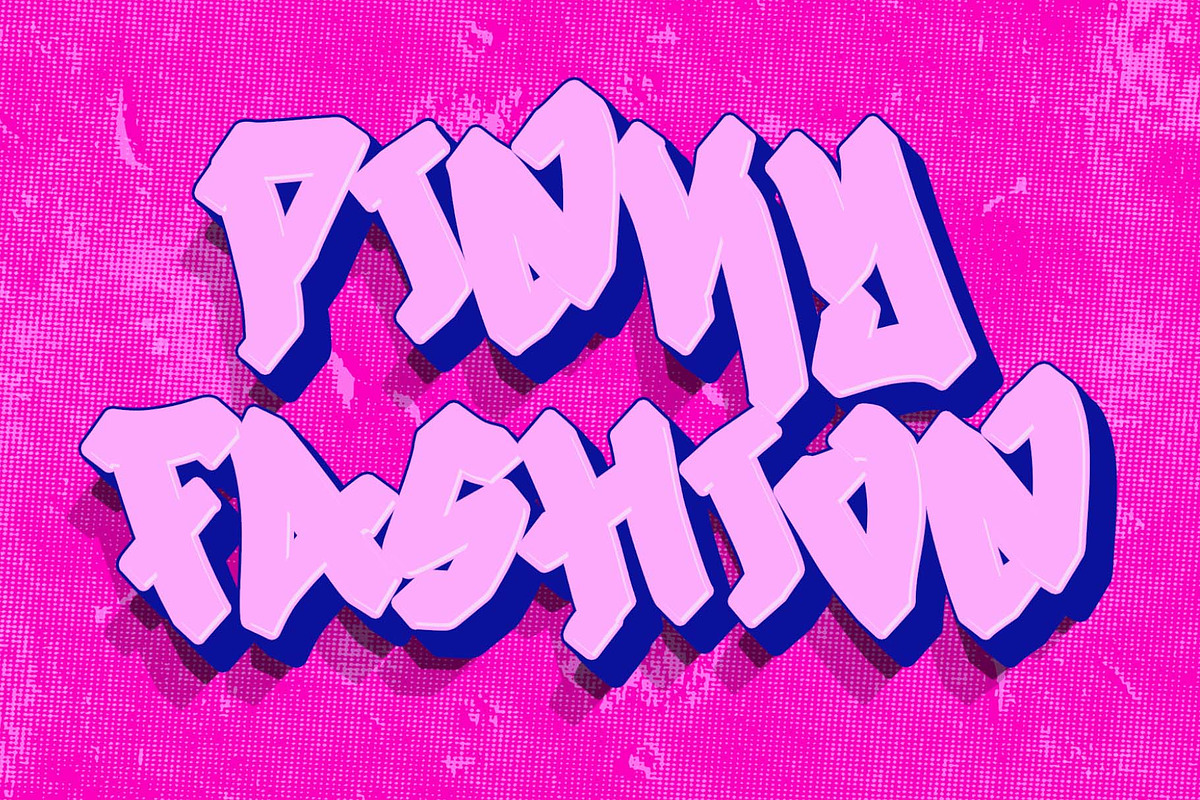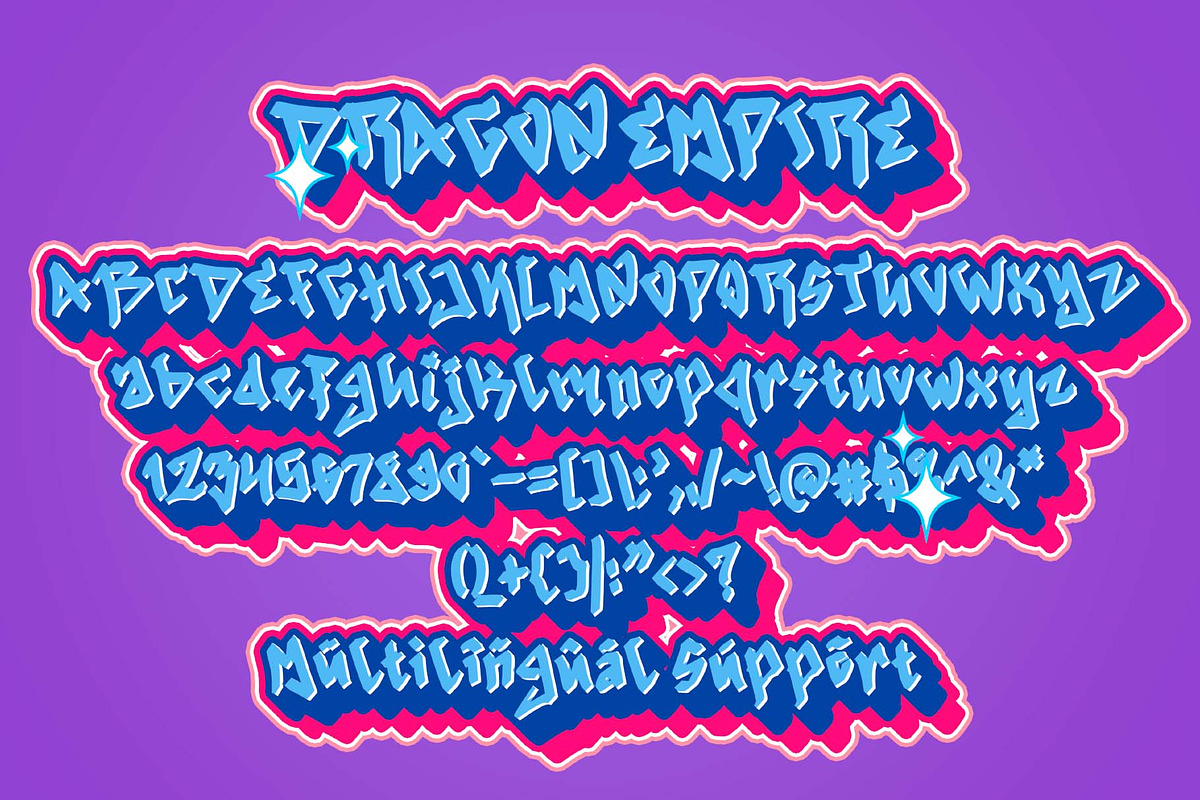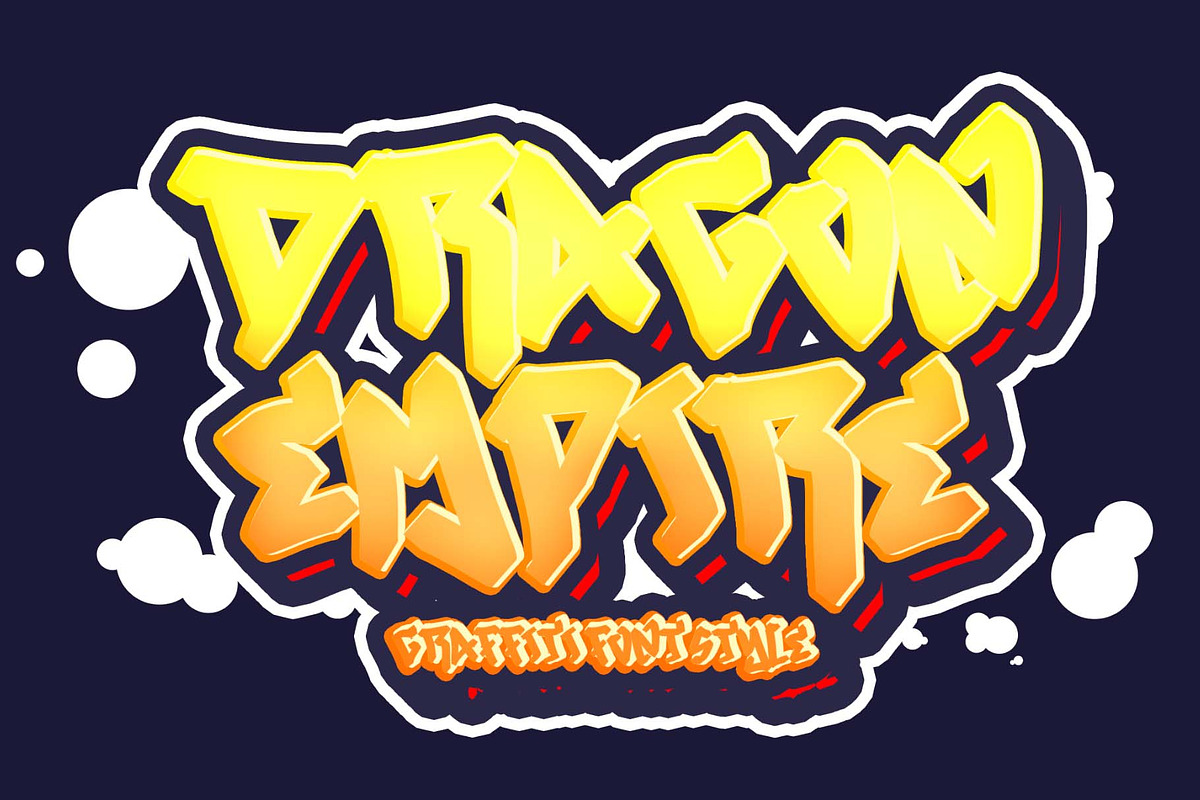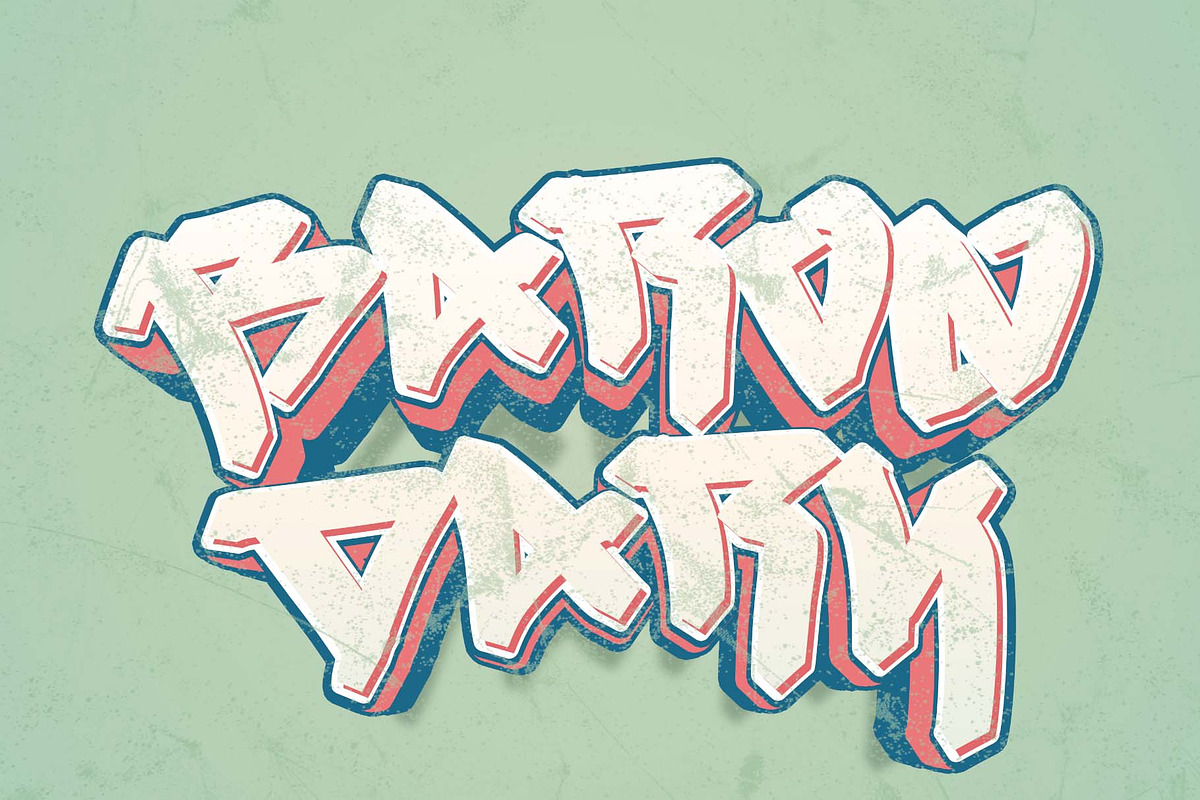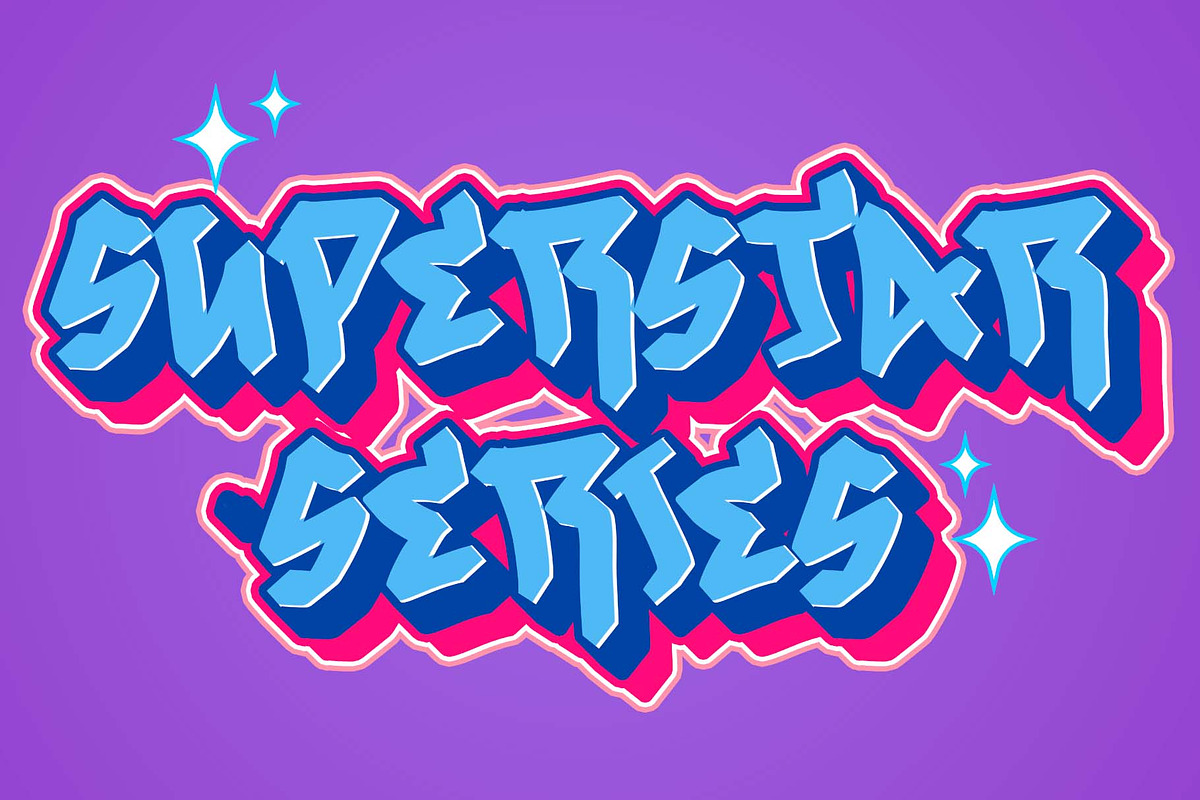
Dragon Empire
“Dragon Empire” is a unique and elegant graffiti font. This font is very suitable for comic titles, logos, banners, posters, prints, banners, branding, stickers, tattoos, games, Halloween, Christmas, and others. Equipped with lowercase letters, uppercase letters, punctuation, numerals, and multilingual support.